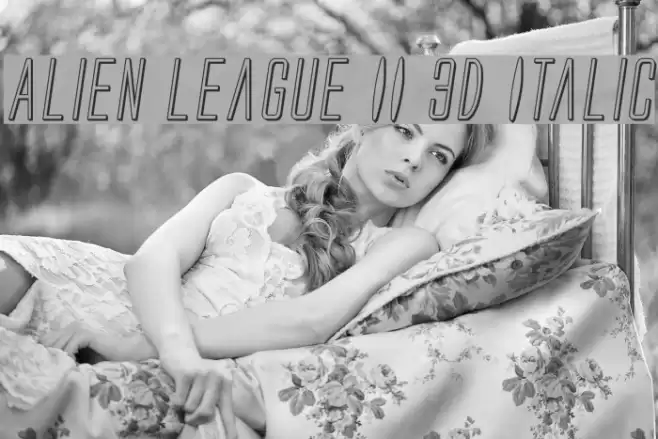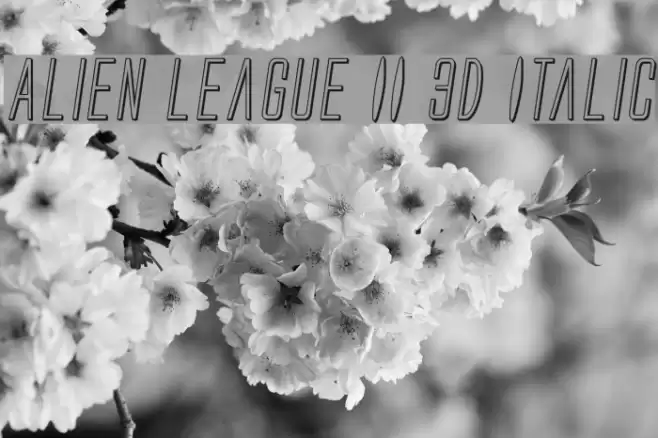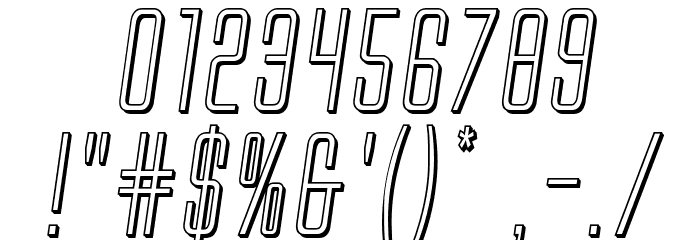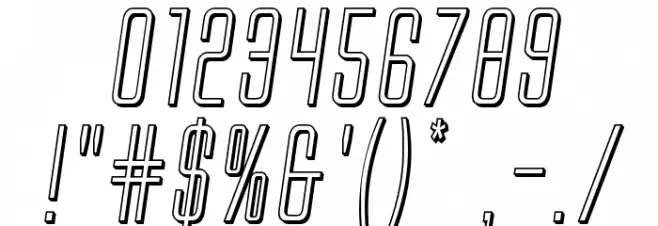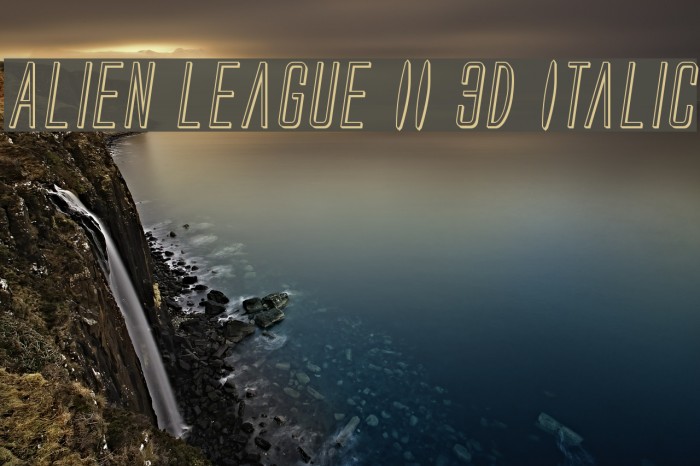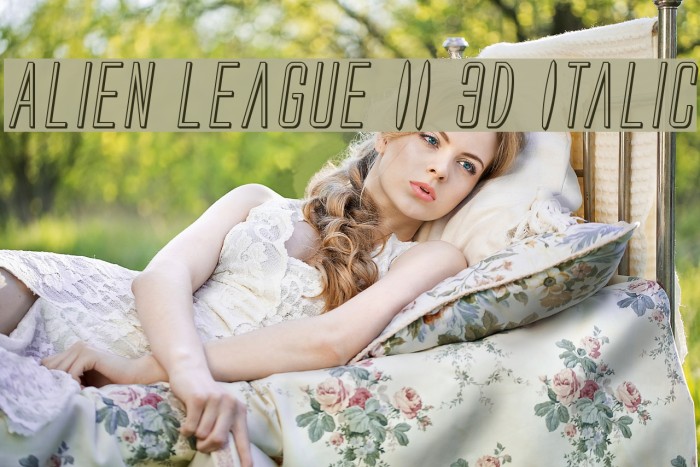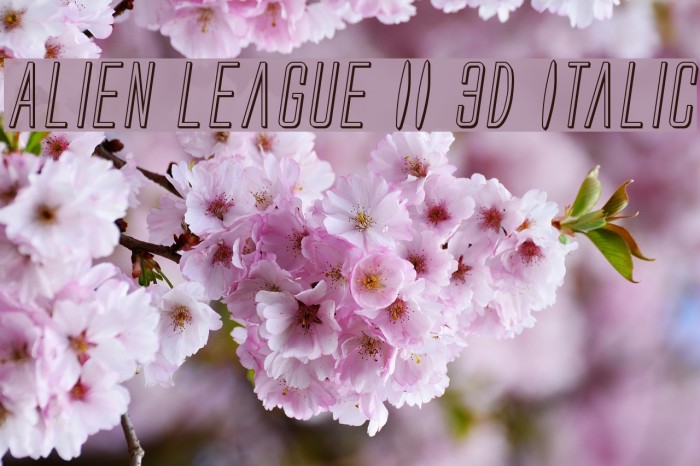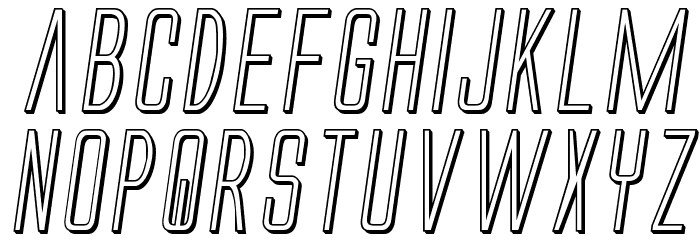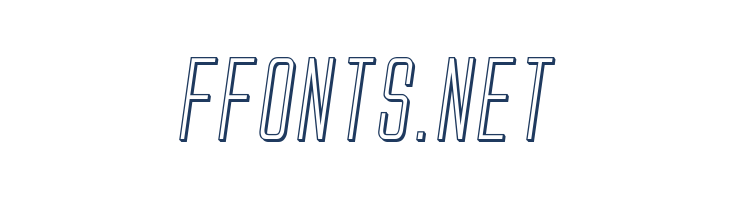
Alien League II 3D Italic Font
Alien League II 3D Italic Description
This font features a futuristic and dynamic design, characterized by its elongated and angular letterforms. The 3D effect adds depth, making it stand out with a sense of movement and modernity. The italic slant enhances its sleek and forward-thinking appearance, perfect for projects that require a bold and innovative look. The uppercase letters are particularly striking, with a consistent geometric style that maintains readability while offering a unique aesthetic. The numbers and special characters follow the same design principles, ensuring a cohesive visual experience across all text elements.
A futuristic, 3D italic font with angular and elongated letterforms from Uncategorized fonts.
- Proposed Projects: Ideal for sci-fi themed designs, video game titles, tech branding, and futuristic posters.